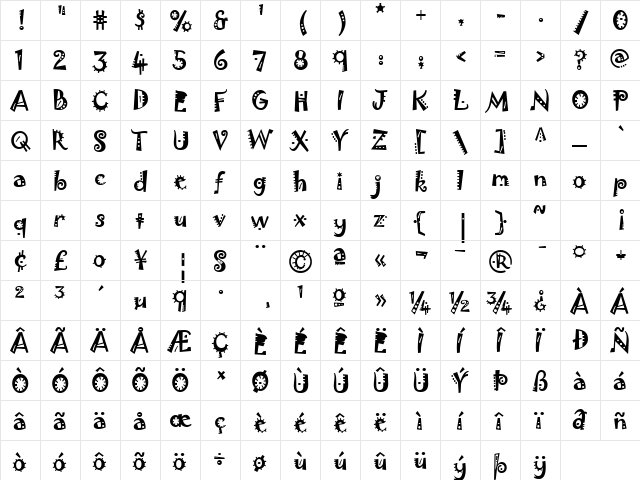
Joker Bold
Design Context for Joker Typeface
Joker is a composed and adaptable typeface that performs quietly and consistently across a wide range of design contexts. Its bold stroke weight gives it real presence on the page.